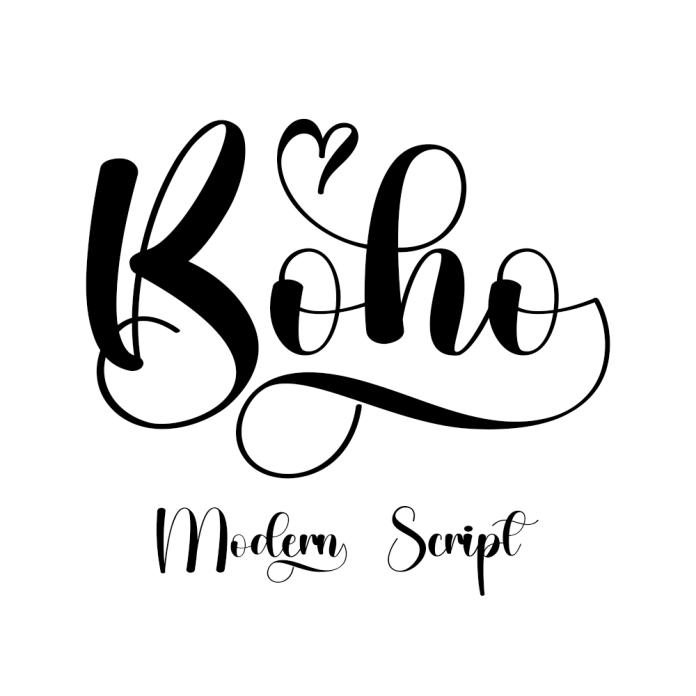
Boho Script Font is a fun and friendly handwritten font. Whether you’re using it for crafts, digital design, presentations, or making greeting cards, this font has the potential to become your favorite go-to font, no matter the occasion!